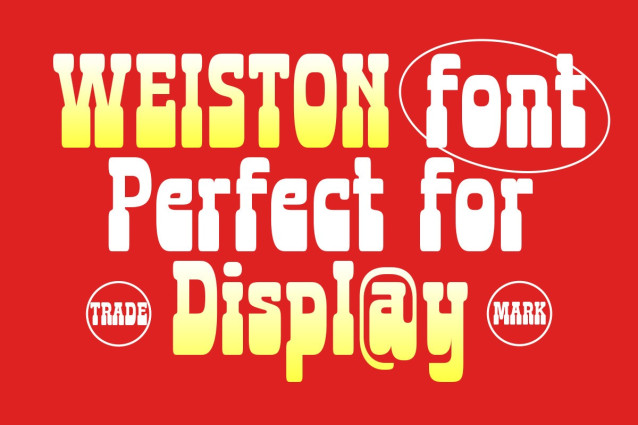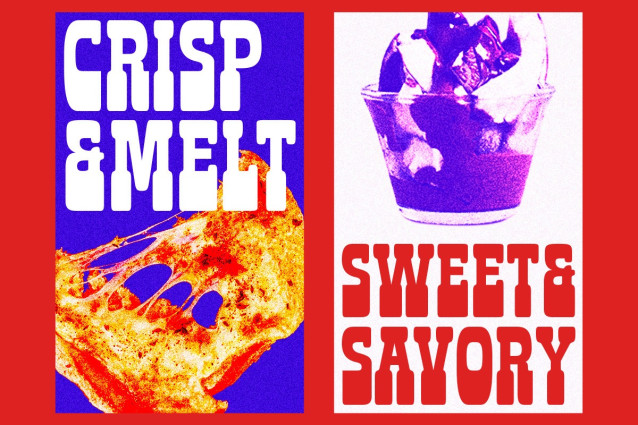
Weiston Font a chunky rounded slab serif style with a fun retro punch. Its strong shapes and soft edges create a confident look that feels both classic and playful, like vintage sports posters and old-school signage rolled into one cool typeface.